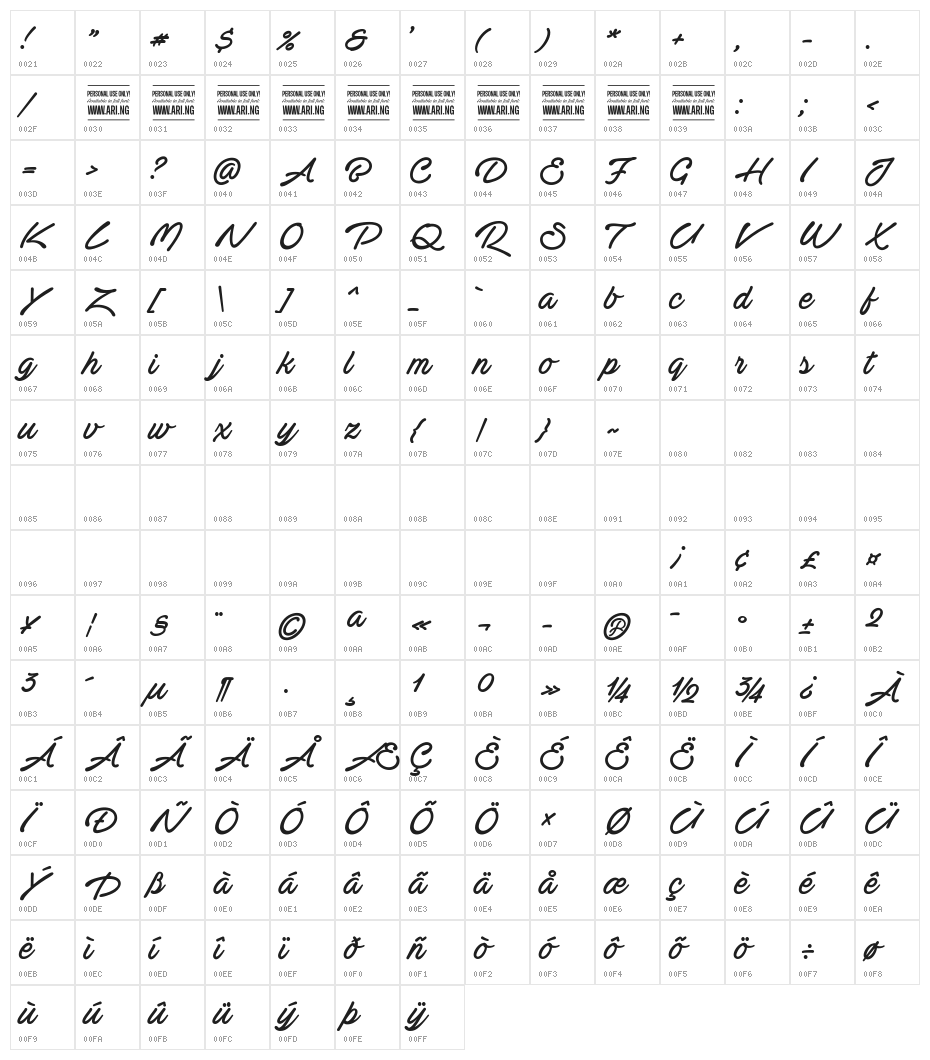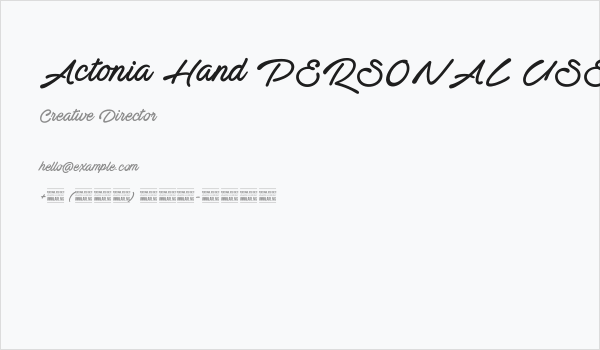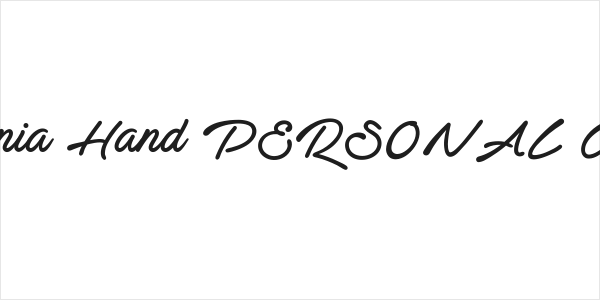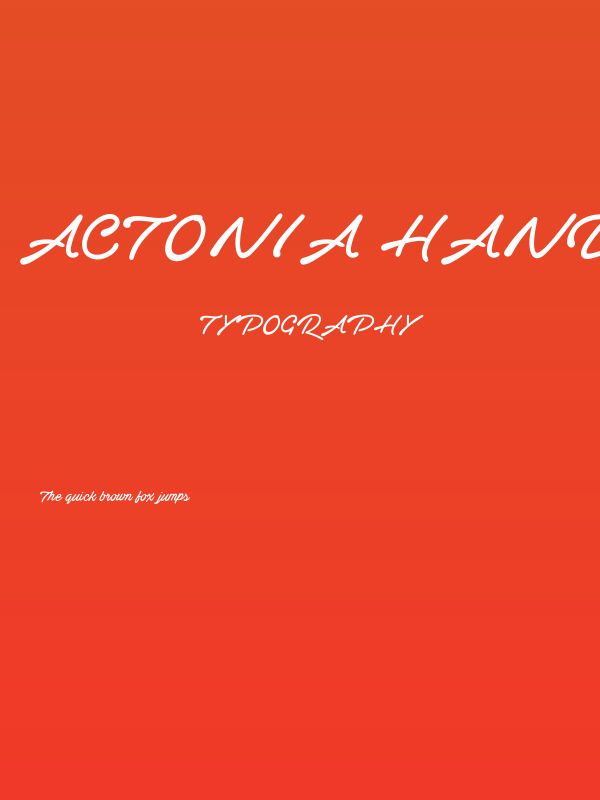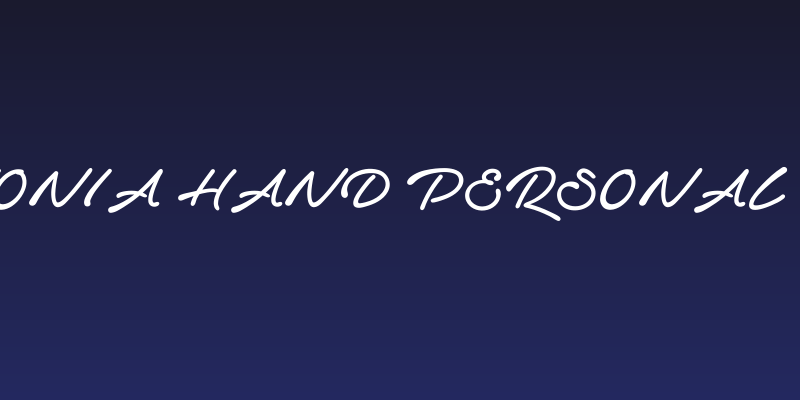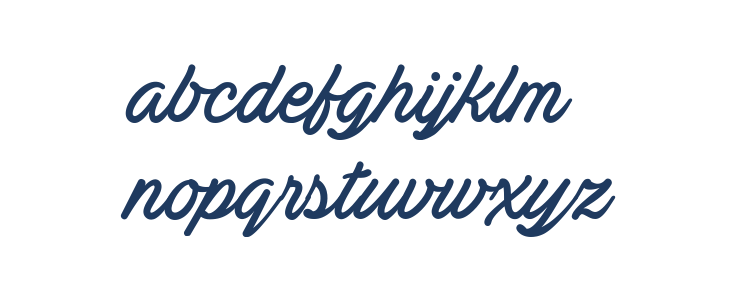
Actonia Hand PERSONAL USE Font
Actonia Hand PERSONAL USE Description
This font features a flowing, cursive style with elegant, sweeping strokes that give it a handwritten appearance. The uppercase letters are slightly more formal, with a consistent slant and smooth curves, while the lowercase letters maintain a casual yet sophisticated look. The characters are well-balanced, with a moderate contrast in stroke thickness that adds to the overall readability. The numerals and special characters are designed to match the script style, ensuring a cohesive look across all text elements.
| Proposed Projects | Ideal for wedding invitations, greeting cards, personal branding, and decorative projects where a personal touch is desired. |